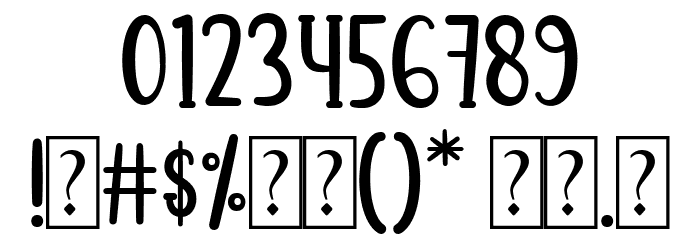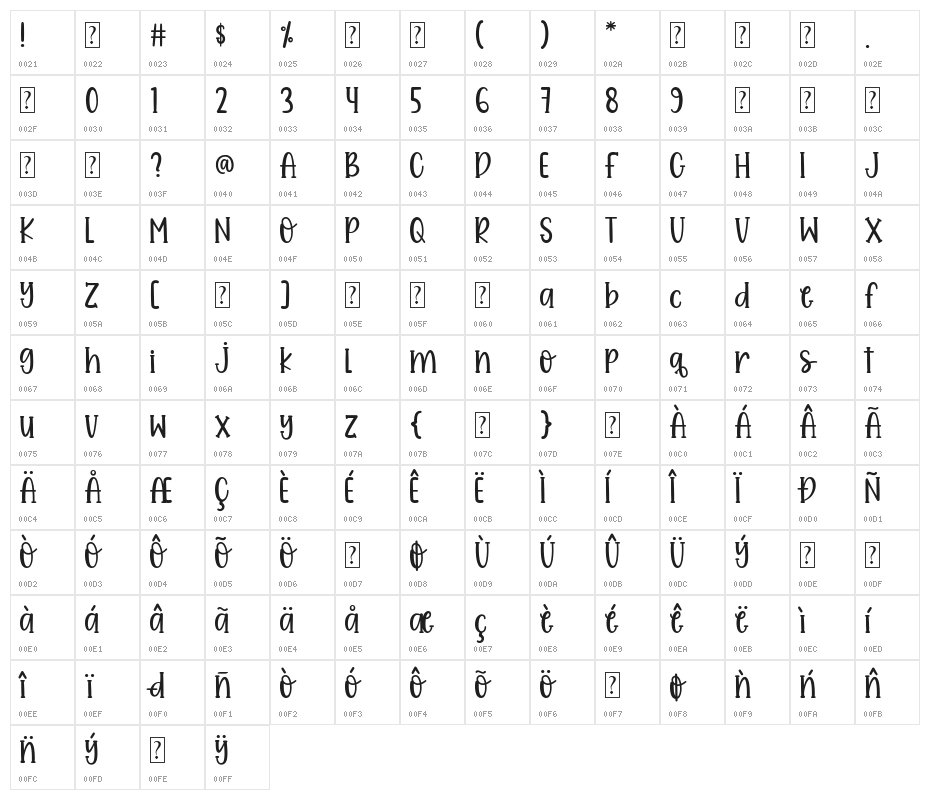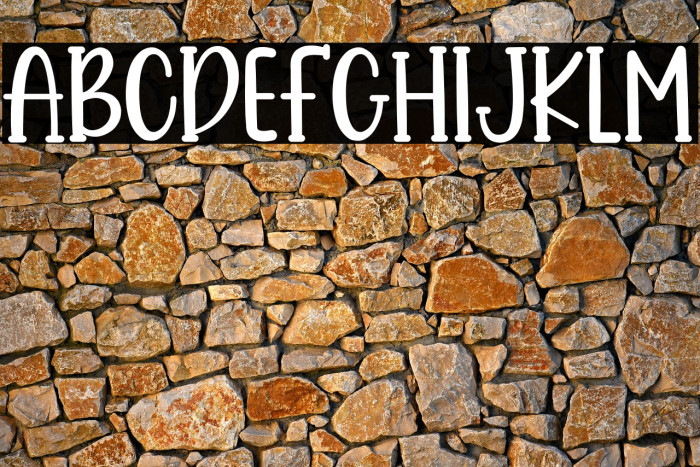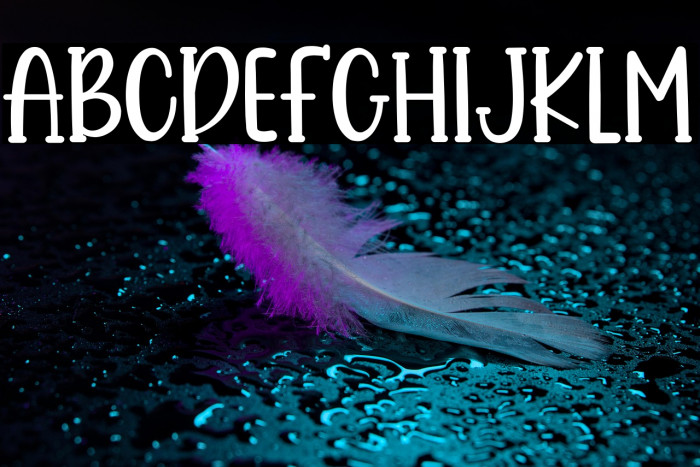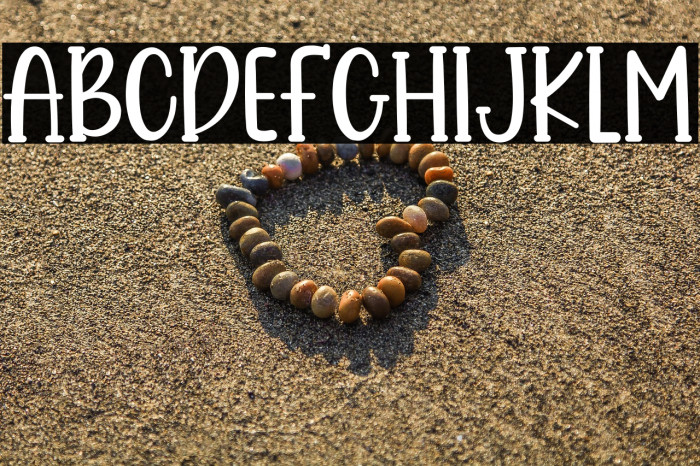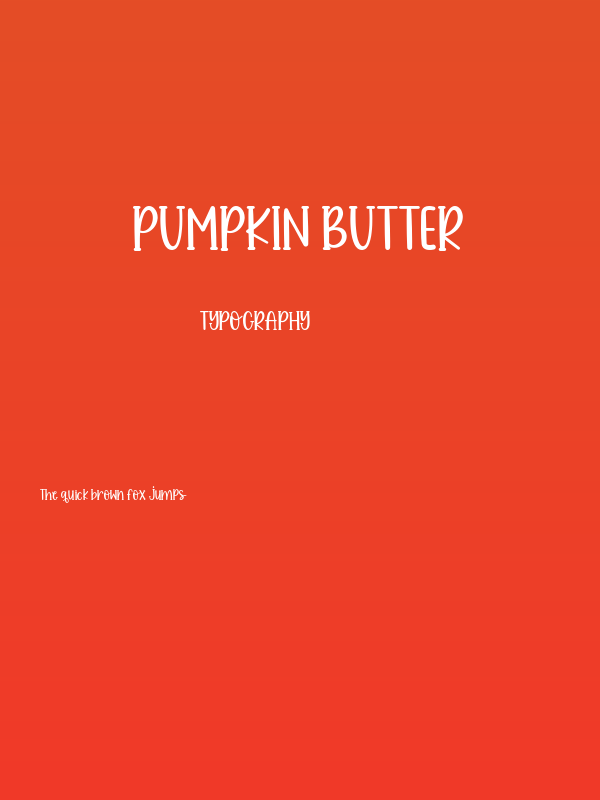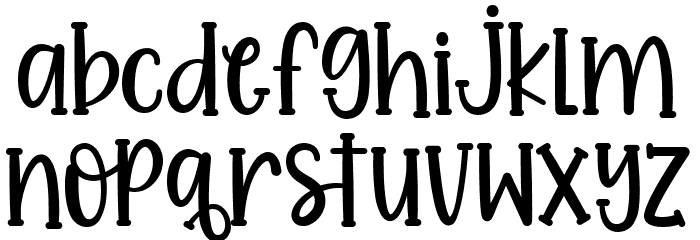
Pumpkin Butter Font
Pumpkin Butter Description
This playful and whimsical font features a handwritten style with a touch of elegance. The characters are slightly elongated with a consistent stroke width, giving it a friendly and approachable appearance. The uppercase letters are bold and prominent, while the lowercase letters maintain a charming, casual feel. The numbers and special characters are crafted to match the overall aesthetic, making it versatile for various design needs. The font's unique personality makes it ideal for projects that require a touch of creativity and fun.
| Overall Style | Whimsical |
| Proposed Projects | Ideal for greeting cards, children's books, playful branding, and creative invitations. |